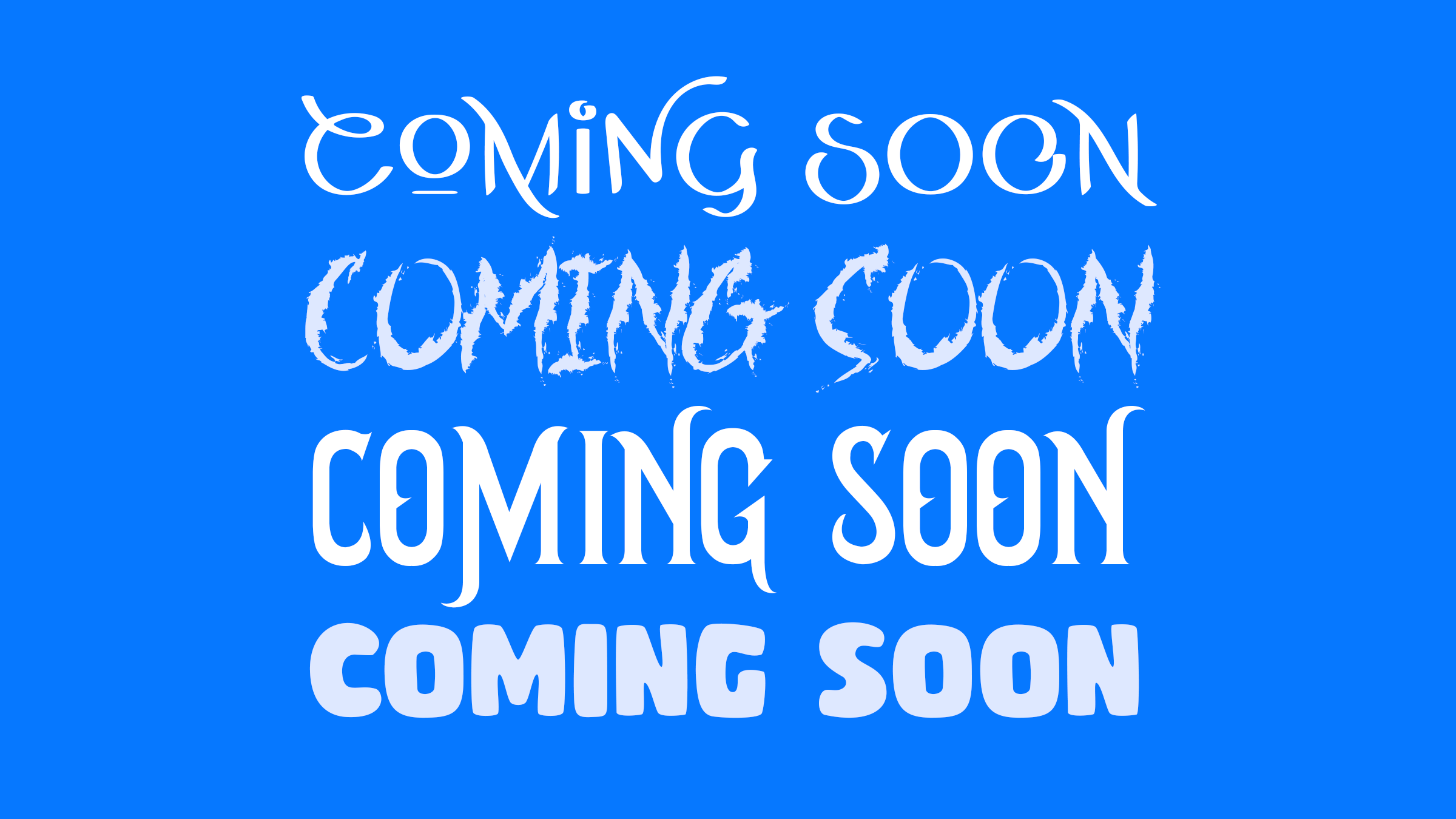
Whatever the genre – from adventure to western – these big-screen typefaces are guaranteed to reel in your audience.
We are told never to judge a book by its cover but, when it comes to movie posters, teaser trailers and opening credits, that’s exactly what directors want us to do. Movie fonts can provoke a psychological reaction: some tell us to expect a fast and furious action-packed blockbuster; others make it clear the audience is in for a child-friendly comedy.
Fonts (and families of fonts, known as typefaces) are visual cues that immediately convey a movie’s genre, meaning designers don’t have to worry about crowding their poster, Instagram image or YouTube channel art with extra (unnecessary) information.
From the typewritten title of a crime thriller to the blue glow that signals it’s a sci-fi film, many movie posters follow a tried-and-tested formula. Why? Because it’s worked for decades.
Tapping into recognisable styles (serifs for crime, sans serifs for sci-fi, for example) is a guaranteed win, but there are a few recent font trends that can boost your design – like retro fonts (Once Upon A Time in Hollywood), handwritten fonts (Us) and pop culture fonts (Birds of Prey, BlacKkKlansman). Get the latest Hollywood look with a great font.
Beamed down from outer space or genetically engineered in a laboratory – wherever it came from, there’s a creature out to get you. Like the typefaces chosen for Alien, Moon and Ex Machina, this sparse, wide-spaced, futuristic font screams sci-fi.
Welcome to a land of make believe. This flexible font comes in lower case, upper case, bold and regular, and has all the twists and turns that views have come to expect from a tale featuring dragons, giants and a hero about to embark on a fantastical quest. Discover more fantasy movie fonts.
If you want a font that feels hand-drawn, trust your inner compass and opt for Adventure. The brush-style characters add an outdoor element to personal or commercial projects.
There’s a reason why horror films often call upon jittery, scratchy hand-written styles like this, and that’s because they are utterly unnerving. Resembling something that’s been carved on a wall while in captivity, Horror’s lower and upper case letters, numbers and punctuation marks are the stuff of nightmares.
The kind of font that looks like it would be squishy (or make a hilariously rude noise) if you accidentally sat on it, this chubby, all-capitals font is ideal for cartoons and children’s films.
The typeface equivalent of being whisked to Paris for a romantic weekend, Romcom’s perfect pair – brush-style Raselina and uppercase-only Raselina Sans – will make sentimental cinema-goers week at the knees. Cool, curly and ever so slightly quirky, it’s a romcom winner.
Give large-scale projects and movie titles some swagger with Savath Regular, Rust and Rough (or The Good, The Bad and The Ugly, if you prefer). This bold and blocky typeface will have audiences thinking of saloons, shootouts and cowboys slinking off into the sunset. Download more Western-style movie fonts.
Making an independent, arthouse film? Then anything goes. Keep things looking artisan and authentic with this casual brush script font that – like your movie – doesn’t need special effects or A-list talent to have an impact.
Courtroom battles, tales of espionage, revenge plots – with a storyline this serious, you need a font that shows just how high the stakes are. This towering typeface also comes with a compressed sans serif version, which is perfect for movie poster credit blocks.
From The Godfather to The Girl With the Dragon Tattoo, criminal underworlds, supersluething detective stories and murder mysteries have been shared via impactful serif fonts like this for decades.